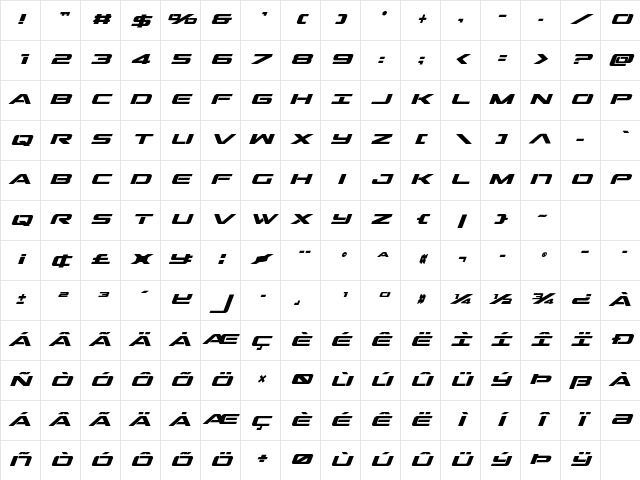
Style: Semi-Condensed Bold Italic
Design Context for Outrider Semi-Condensed Bold It
Outrider Semi-Condensed Bold It is a composed and adaptable typeface that performs quietly and consistently across a wide range of design contexts. The slanted form adds forward momentum and visual energy. Its bold stroke weight gives it real presence on the page. Its narrow stance lets it pack a punch even in space-constrained designs.
Pro Tip: Use Outrider Semi-Condensed Bold It for emphasis, pull quotes, and subheadings where its slanted energy can add rhythm to the layout.